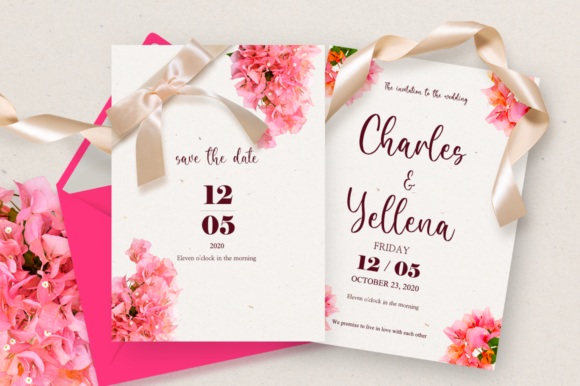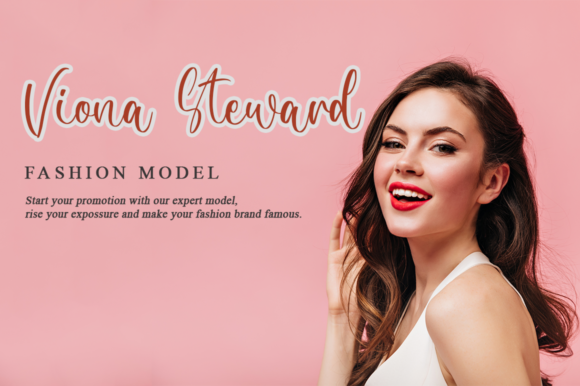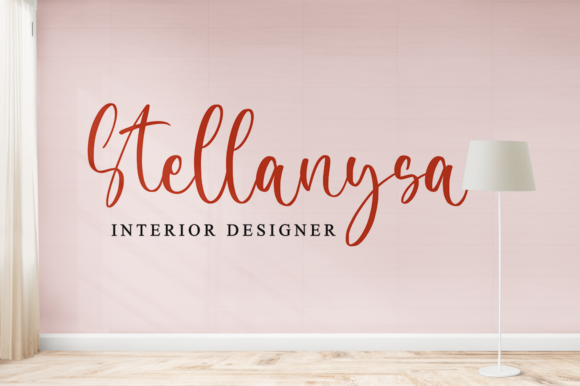
Introduction to Melodila Font
Melodila is a lovely and timeless handwritten font.
It is the best choice for creating eye catching logos, branding and quotes This font is PUA encoded which means you can access all of the glyphs and swashes with ease.
Melodila Font offers exceptional quality and versatility, making it a valuable addition to your design toolkit. Whether you’re creating for personal projects or commercial use, Melodila Font delivers professional results.